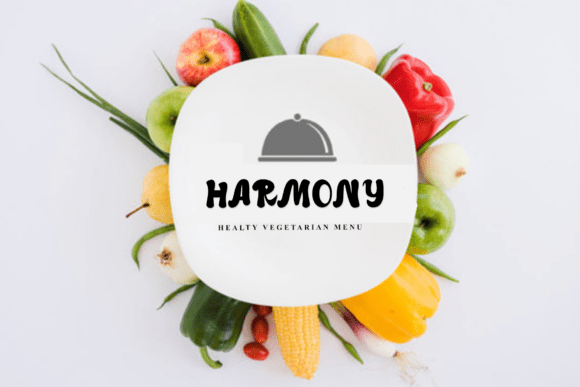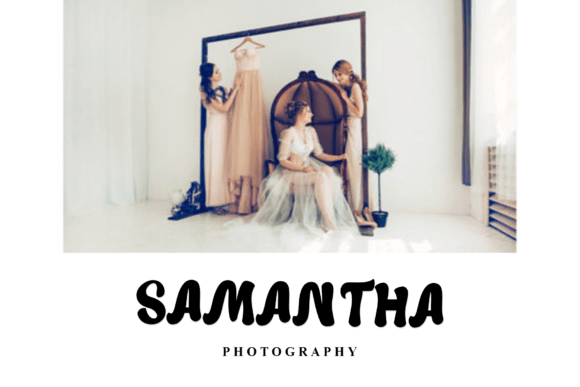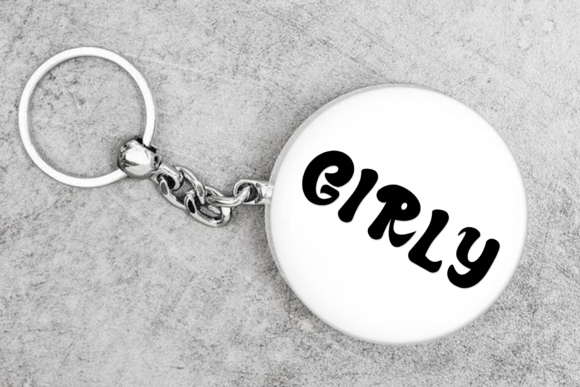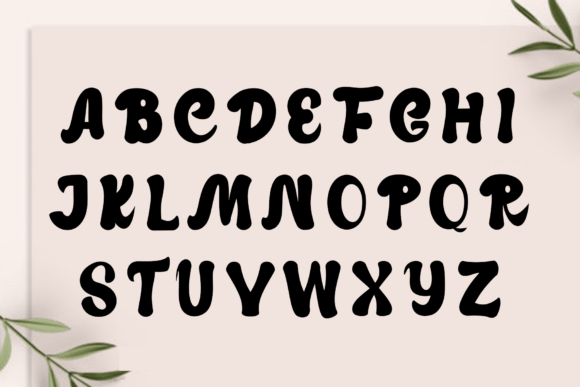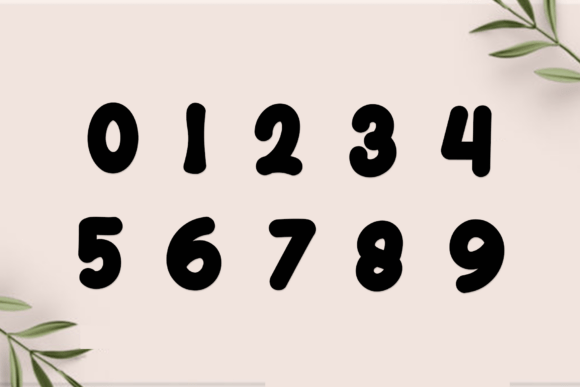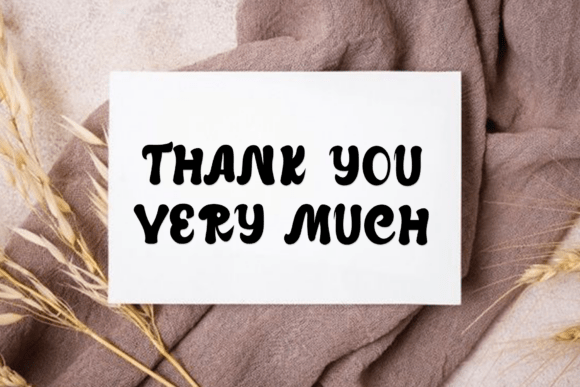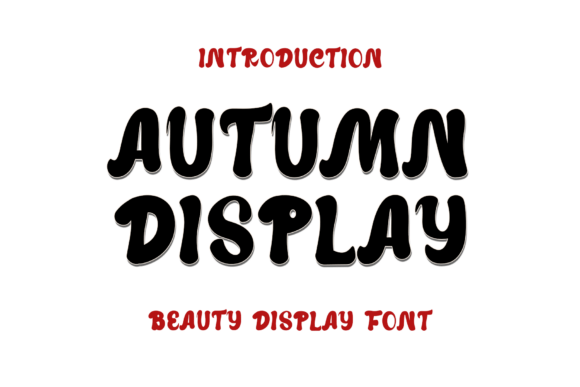
Introducing the Autumn Display Font: A Bold and Playful Typeface for Seasonal Designs
As the seasons change and autumn arrives, designers and crafters are on the lookout for typography that captures the warmth and coziness of this time of year. Look no further than the Autumn Display Font, a bold, playful display typeface specifically crafted for eye-catching headlines and seasonal designs. With its unique blend of retro charm and modern boldness, this font is sure to add a touch of personality and warmth to any project.
The Autumn Display Font boasts rounded and heavy letterforms, with soft curves that give it a friendly, approachable feel. The strokes are thick and slightly irregular, adding a hand-drawn, organic quality that makes the font stand out from more traditional typefaces. This distinctive design makes it perfect for projects that require a bold and attention-grabbing typographic style.
One of the key benefits of the Autumn Display Font is its versatility. While it’s designed specifically for use as a display font, its balanced blend of retro and modern elements makes it suitable for a wide range of projects. From posters and event titles to seasonal promotions, branding, and social media graphics, this font can add a touch of personality and whimsy to any design.
Best Use Cases
While the Autumn Display Font can be used in a variety of contexts, it’s best suited for large-scale use where its bold and playful characteristics can really shine. Some of the best use cases for this font include:
• Posters and flyers for seasonal events, such as harvest festivals or Halloween parties
• Event titles and headings for autumn-themed weddings, parties, and gatherings
• Seasonal promotions and advertising campaigns for businesses and brands
• Branding and packaging for autumn-themed products, such as pumpkin spice mixes or apple cider
• Social media graphics and posts for seasonal events and promotions
Why Choose the Autumn Display Font?
So why choose the Autumn Display Font for your next design project? Here are just a few reasons:
• Visibility: The font’s strong weight and bold design ensure that your message will be seen and remembered.
• Creativity: The quirky shapes and hand-drawn feel of the font add a sense of fun and creativity to any design.
• Warmth: The font’s friendly, approachable feel makes it perfect for projects that require a touch of warmth and personality.
• Versatility: The font’s balanced design makes it suitable for a wide range of projects and applications.
Tips for Using the Autumn Display Font
To get the most out of the Autumn Display Font, here are a few tips to keep in mind:
• Use it boldly: The Autumn Display Font is designed to be seen, so don’t be afraid to use it in large sizes and bold applications.
• Experiment with colors: The font’s hand-drawn feel and quirky shapes make it perfect for use with a variety of colors and textures.
• Pair it with contrasting fonts: For body text and other smaller applications, pair the Autumn Display Font with a contrasting font that’s clean and easy to read.
In conclusion, the Autumn Display Font is a bold, playful display typeface that’s perfect for designers and crafters looking to add a touch of personality and warmth to their seasonal designs. With its unique blend of retro charm and modern boldness, this font is sure to stand out in any project. Whether you’re designing posters, event titles, seasonal promotions, or social media graphics, the Autumn Display Font is a versatile and attention-grabbing choice that’s sure to delight.